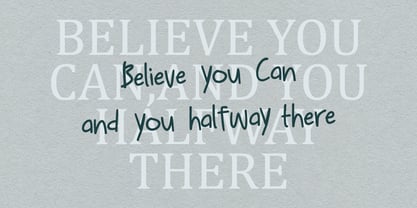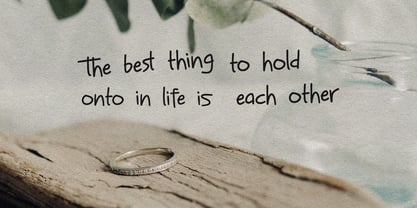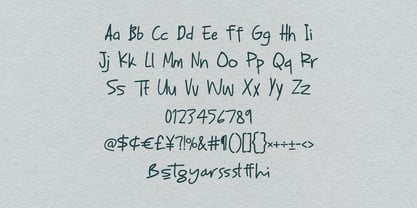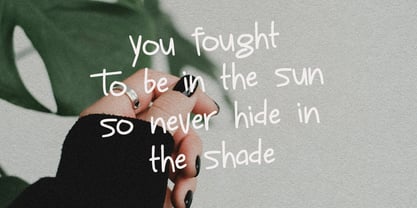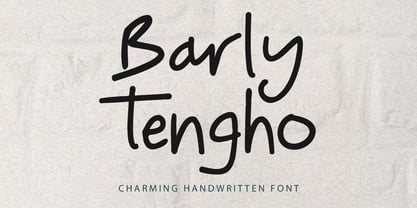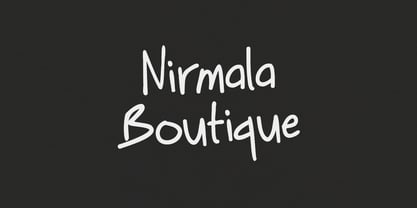
MC Barly Tengho
by Maulana Creative
The MC Barly Tengho Font Family was designed by Gilang Maulana and published by Maulana Creative. MC Barly Tengho contains 1 styles. More about this family
Barly Tengho is a delightful and casual handwritten font that infuses a warm and inviting touch into your designs. Its playful strokes and natural flow evoke a sense of authenticity, making it ideal for a variety of applications such as branding, inspirational quotes, invitations, and social media content. Whether you are crafting a boutique logo, designing elegant wedding stationery, or creating heartfelt messages, Barly Tengho offers a contemporary handwritten style that is both approachable and stylish. This font features comprehensive multilingual support, including uppercase and lowercase letters, numbers, punctuation, and symbols, providing you with all the tools necessary for versatile and creative typography. Elevate your projects with Barly Tengho, a handwritten font that seamlessly combines charm and creativity.
Designers: Gilang Maulana
Foundry: Maulana Creative